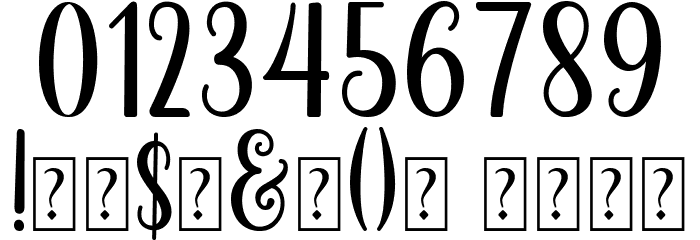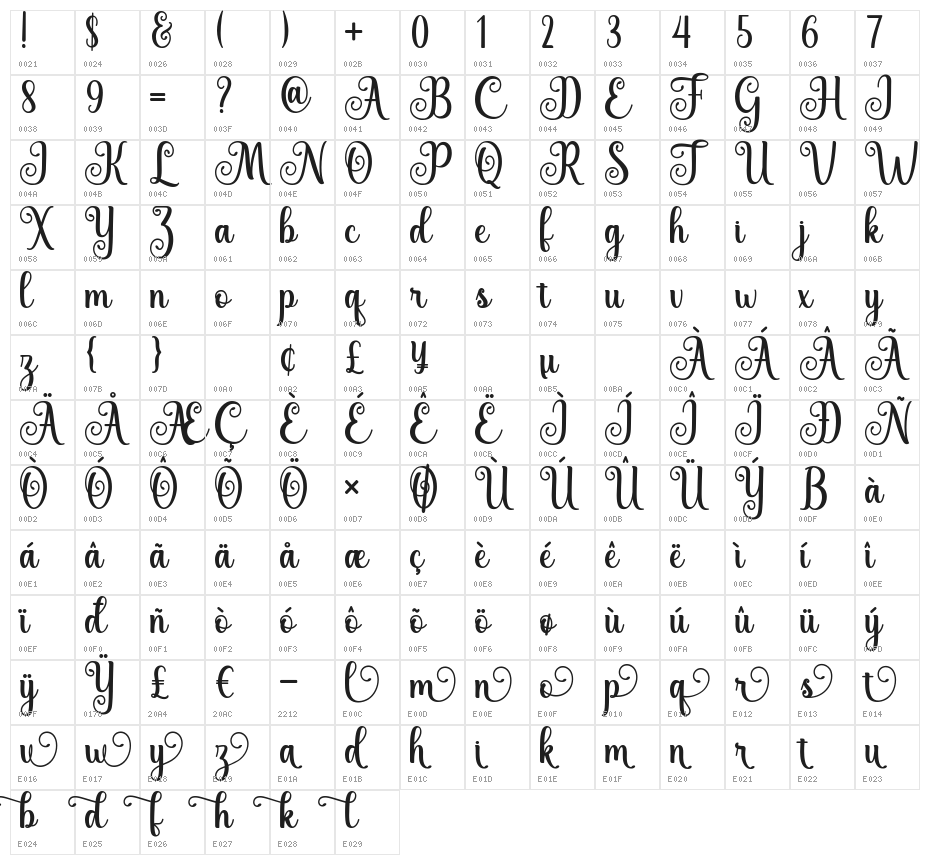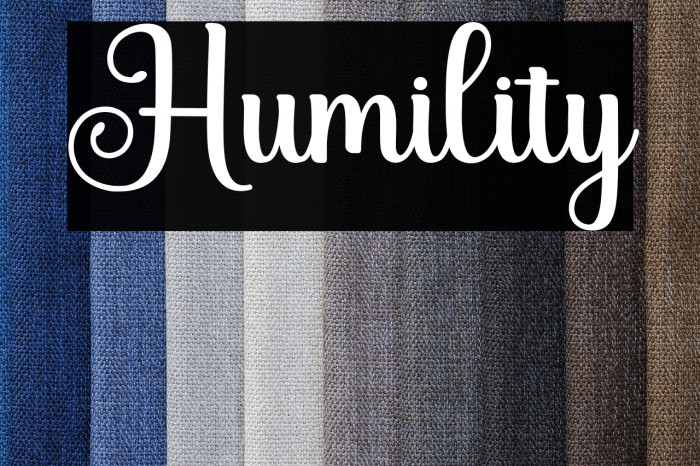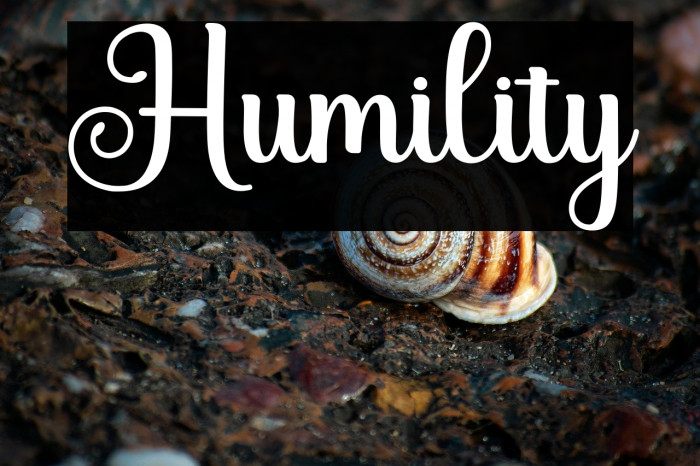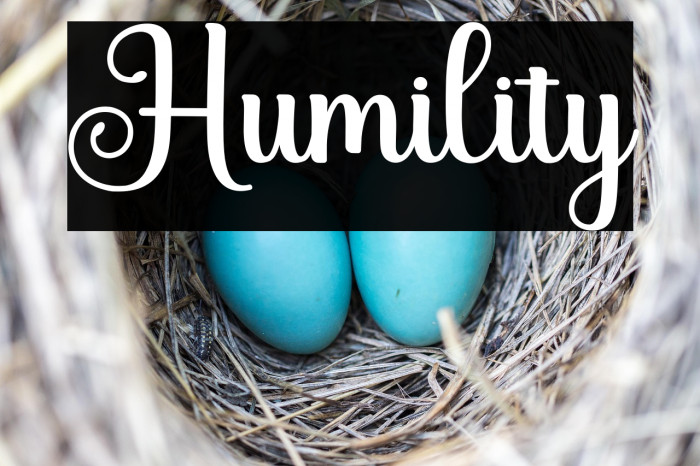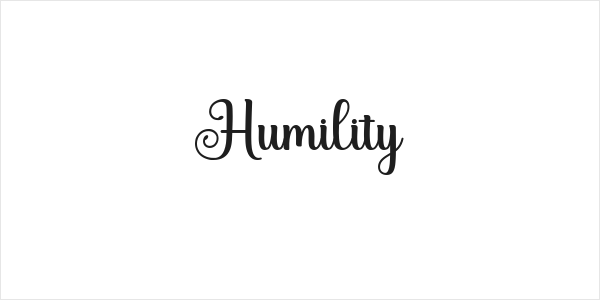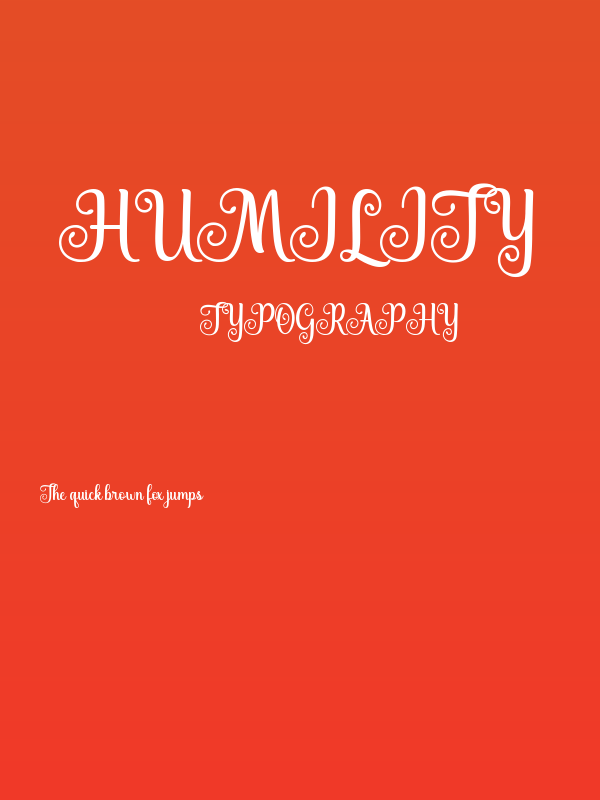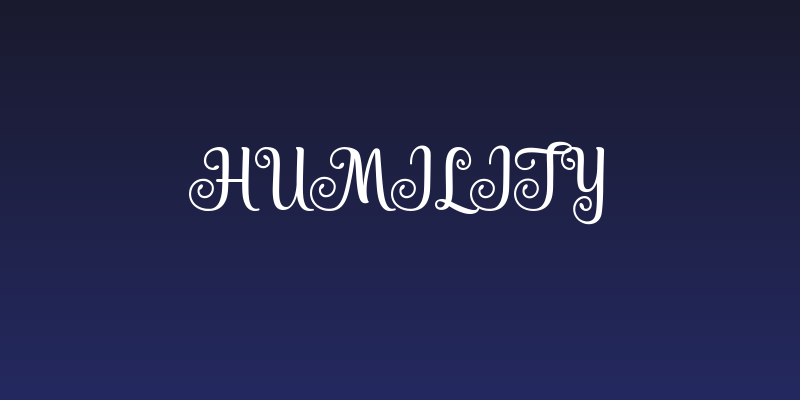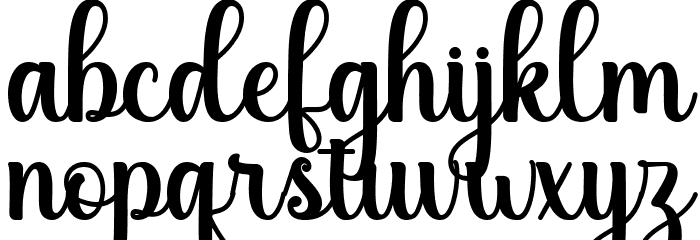
Humility Font
Humility Description
This font features a playful and decorative style with a strong emphasis on curls and loops, particularly visible in the uppercase letters. The lowercase letters maintain a more fluid and connected script style, providing a harmonious balance between elegance and whimsy. The numerals are clean and straightforward, complementing the overall aesthetic without overpowering it. Special characters are designed with a similar flair, ensuring consistency throughout the typeface. This font is ideal for projects that require a touch of personality and charm.
Use CaseHeadlines, Logos, Invitations
Proposed ProjectsPerfect for invitations, greeting cards, branding projects, and playful headlines.